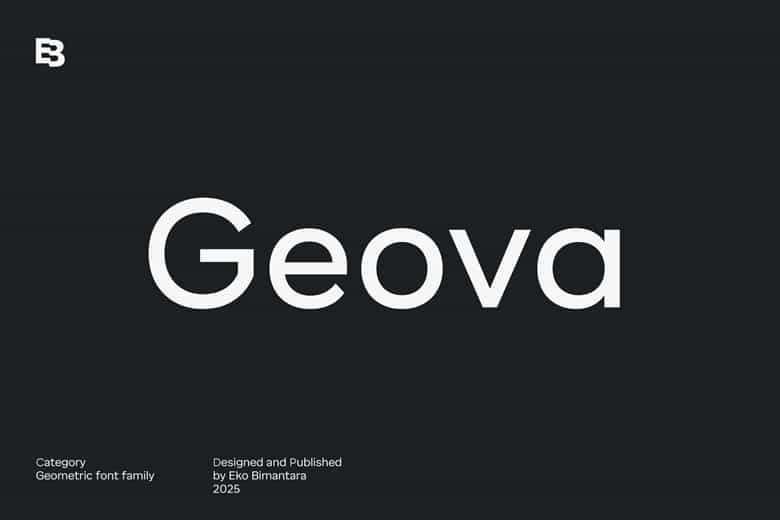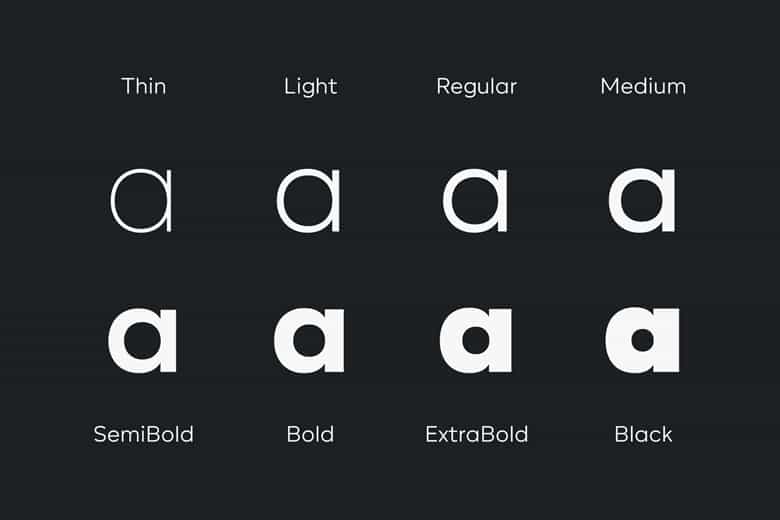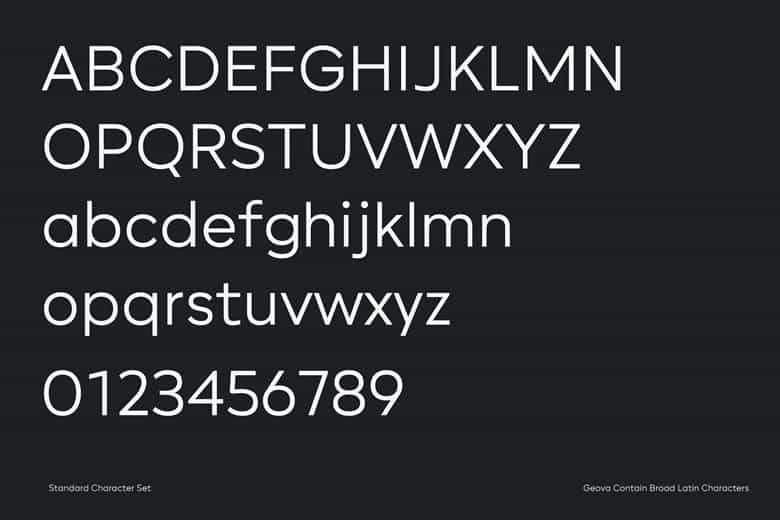
Geova is a humanist-influenced geometric sans font family with proportional letters it has a clean and flexible design that is ideally suitable as both display and text fonts. Its flexibility gives it the ability to fit into any type of design theme such as corporate, enterprise, contemporary design, product, brand, and functional design.